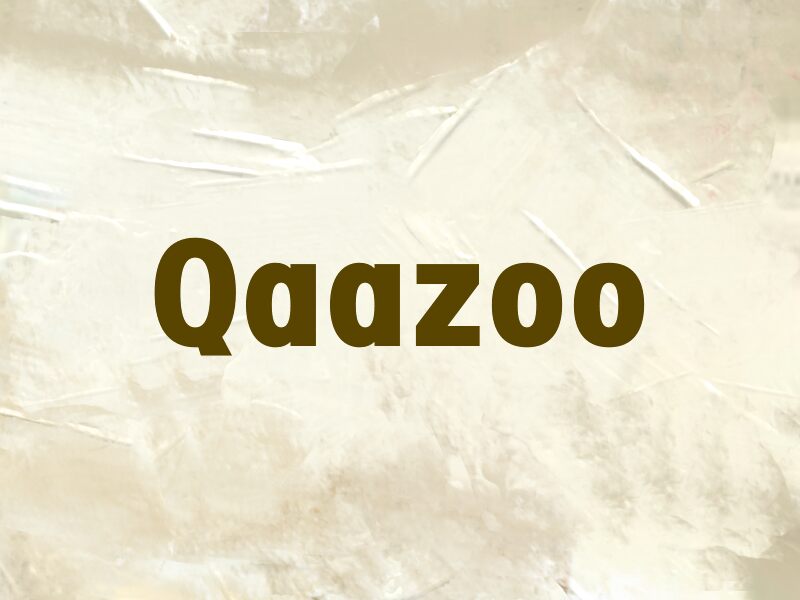
Qaazoo font by wepfont.com is a free sans-serif font that captivates with its clean and modern appearance. This geometric typeface encompasses a strong, confident style suitable for various visual projects. Each letter is crafted with a contemporary approach that balances both aesthetics and functionality.
Integrate this beautiful typeface into both printed and digital forms. It will grasp the viewer’s attention and deliver an effortless reading experience. It is perfect for branding, digital applications, user interfaces, posters, titles, magazines, signage, and much more. All can enjoy it thanks to its legibility and professional appearance.
Qaazoo is a unique and stylish free font that adds a touch of creativity to your design projects. Its modern aesthetic makes it an excellent choice for various applications, including branding, posters, and digital graphics. With its versatile character set and elegant curves, Qaazoo can elevate your typography and give your work a professional appearance.